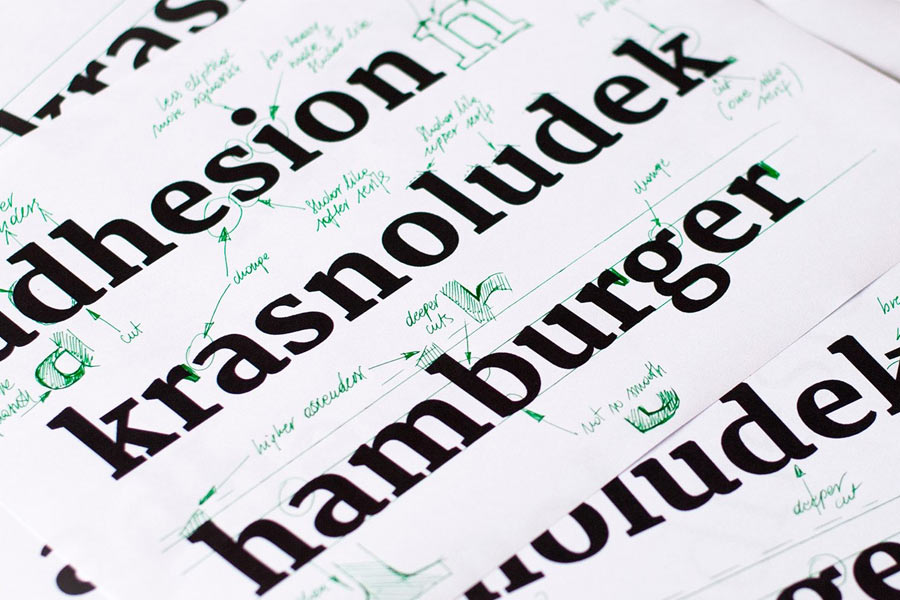
Yrsa & Rasa is a professionally designed open source font family with readability in mind that comes with wide support of languages, 92 in total. Both Yrsa and Rasa is the same font design, however the former comes with only latin characters. Both fonts are suitable for both web and print, in big or small font sizes.
- Designer: Anna Giedryś and David Březina
- Styles: 5
- Category: Serif